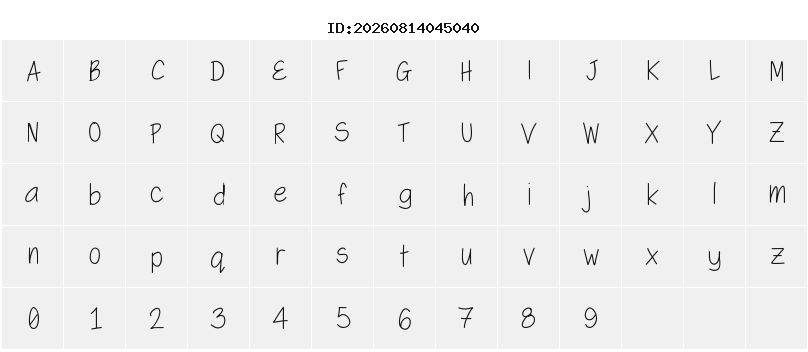
SwaggerLight Preview
• Font Name: SwaggerLight
• Font Style: Light
• Full Font Name: SwaggerLight
About SwaggerLight.ttf
SwaggerLight.ttf is a modern, elegant sans-serif font designed for ultimate readability and visual harmony. Perfect for branding, headlines, web design, and print materials.